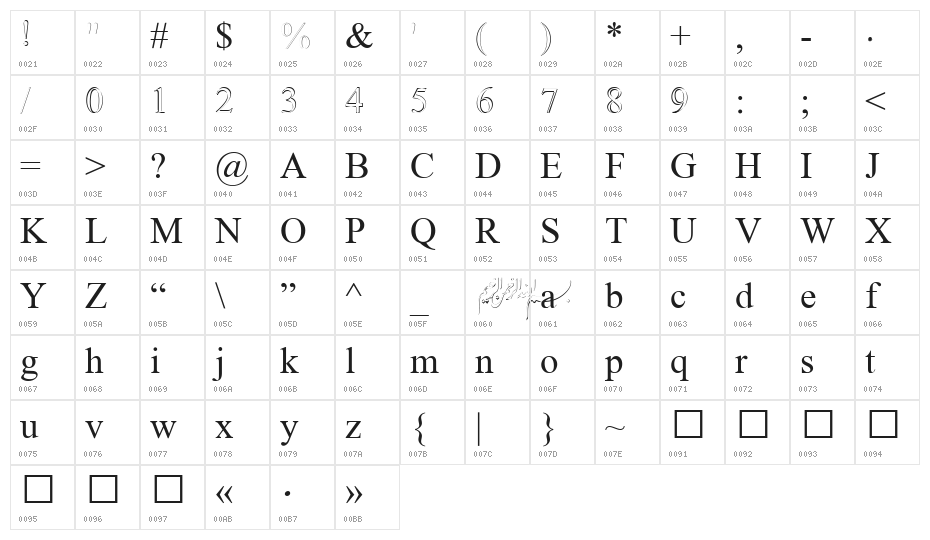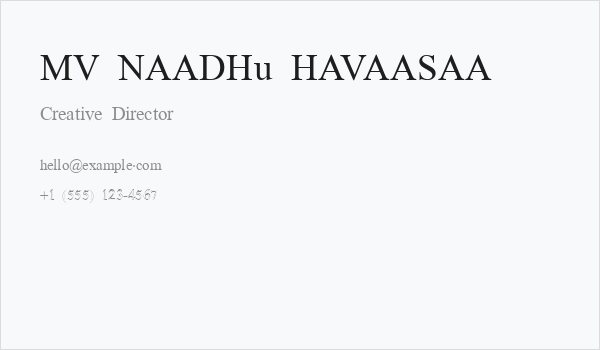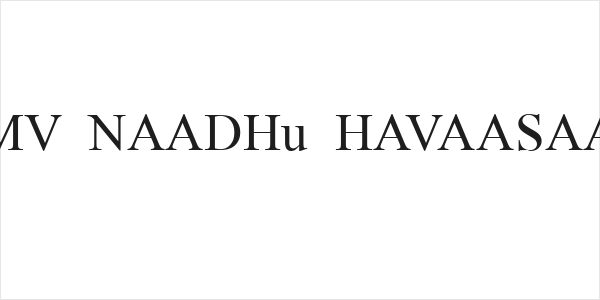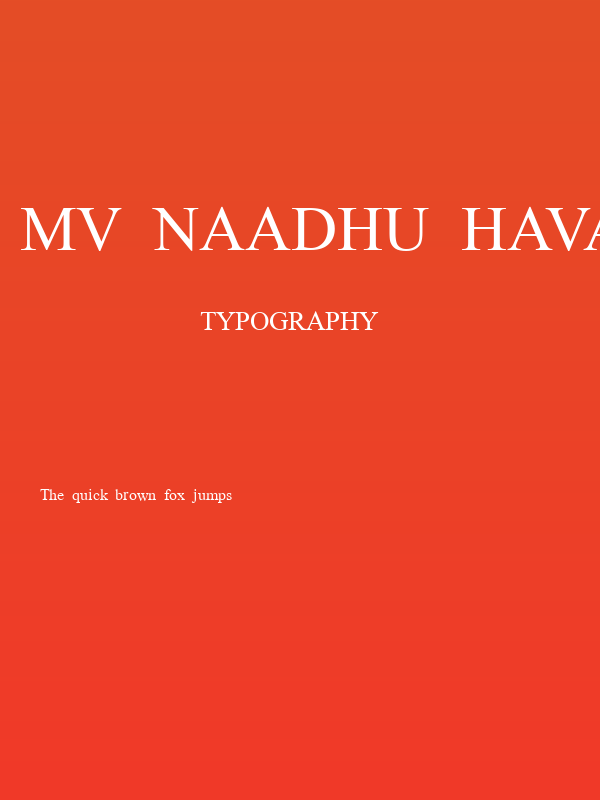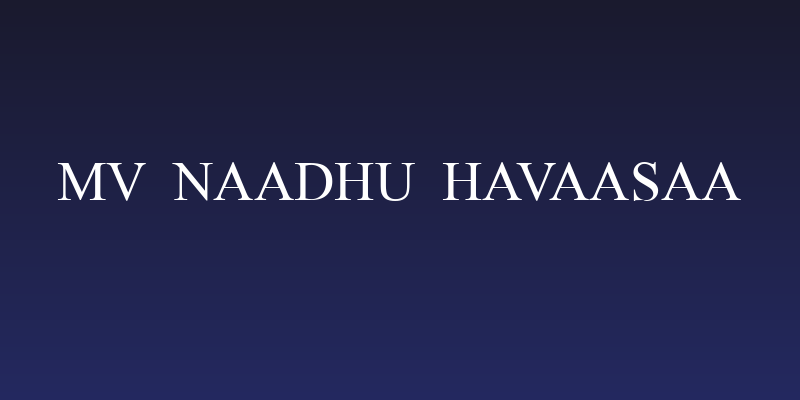
MV NAADHu HAVAASAA Font
MV NAADHu HAVAASAA Description
This font features a classic serif style with elegant and refined strokes. The uppercase letters are bold and commanding, while the lowercase letters maintain a consistent and harmonious flow. The numerals are distinct and easily readable, with a slight flair that adds sophistication. Special characters are well-integrated, maintaining the overall aesthetic of the font. The serifs are pronounced, providing a traditional and timeless feel, suitable for formal and professional contexts.